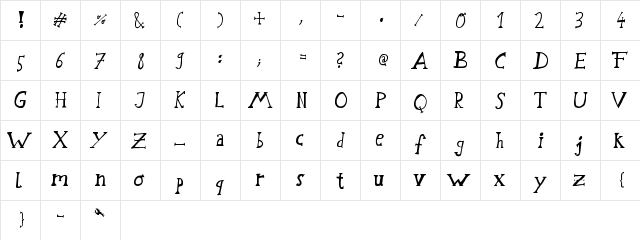
Schwabstrasse Regular
Design Context for Schwabstrasse Typeface
Schwabstrasse is a composed and adaptable typeface that performs quietly and consistently across a wide range of design contexts.